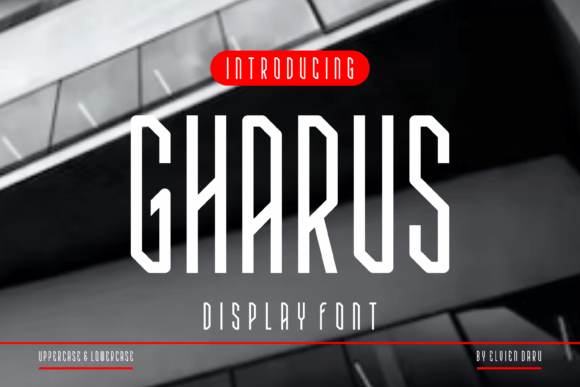
Gharus Font: Elevate Your Creative Projects with a Unique Display Font
Gharus is an incredibly unique display font that has been masterfully designed to become a true favorite among designers and crafters. With its distinctive style, this font has the potential to bring each of your creative ideas to the highest level, making it an essential tool for anyone looking to add a touch of elegance and sophistication to their projects.
What Makes Gharus Font So Special?
Gharus font is not just another ordinary font. Its unique design and exceptional craftsmanship set it apart from other fonts, making it a standout in the world of typography. Here are some of the key features that make Gharus font so special:
- Unique Design: Gharus font boasts a distinctive design that is both elegant and sophisticated. Its unique style makes it perfect for use in a variety of creative projects, from branding and advertising to packaging and signage.
- High Versatility: Gharus font is incredibly versatile, making it suitable for use in a wide range of applications. Whether you’re working on a digital project or a print project, this font is sure to deliver exceptional results.
- Exceptional Legibility: Despite its unique design, Gharus font remains highly legible, even at small sizes. This makes it perfect for use in body text, headlines, and titles.
How to Use Gharus Font in Your Creative Projects
Gharus font is an incredibly versatile font that can be used in a wide range of creative projects. Here are some ideas to get you started:
- Branding and Advertising: Use Gharus font to create stunning logos, advertisements, and marketing materials that are sure to grab attention.
- Packaging and Signage: Add a touch of elegance and sophistication to your packaging and signage with Gharus font.
- Digital Projects: Use Gharus font in your digital projects, such as website designs, social media graphics, and email marketing campaigns.
- Print Projects: Gharus font is perfect for use in print projects, such as brochures, flyers, and posters.
Tips for Getting the Most Out of Gharus Font
To get the most out of Gharus font, here are some tips to keep in mind:
- Experiment with Different Sizes: Gharus font looks great at a variety of sizes, so don’t be afraid to experiment and find the perfect size for your project.
- Pair it with Other Fonts: Gharus font pairs well with other fonts, so try combining it with different fonts to create a unique and interesting look.
- Use it in Combination with Images: Gharus font looks great in combination with images, so try using it to add text to your photos and graphics.
Gharus font is an incredibly unique and versatile display font that is perfect for use in a wide range of creative projects. With its distinctive style, exceptional legibility, and high versatility, this font is sure to become a favorite among designers and crafters. Whether you’re working on a branding project, a digital project, or a print project, Gharus font is sure to deliver exceptional results. So why wait? Download Gharus font today and start elevating your creative projects to the highest level!